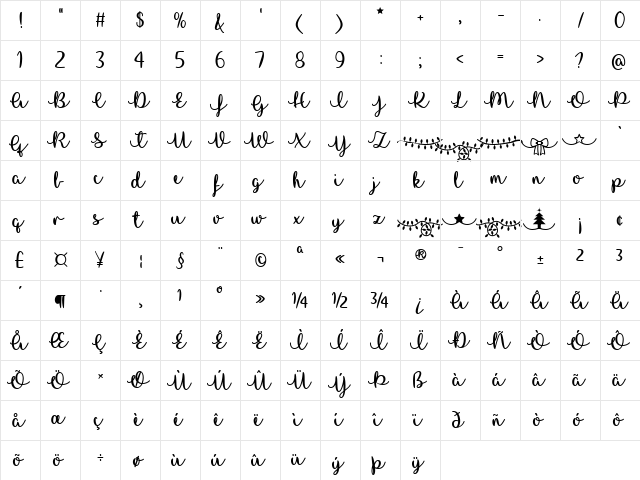
I Love Glittermas Regular
Design Context for I Love Glittermas Typeface
I Love Glittermas is a composed and adaptable typeface that performs quietly and consistently across a wide range of design contexts.